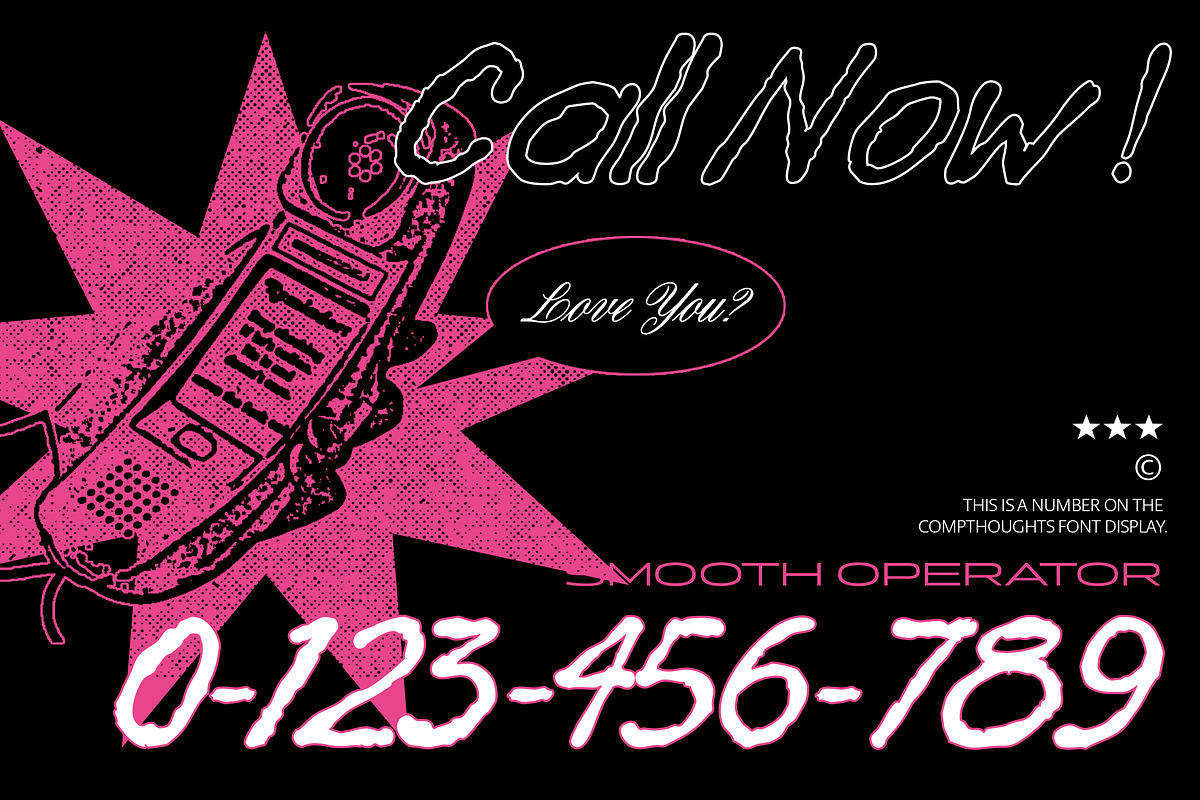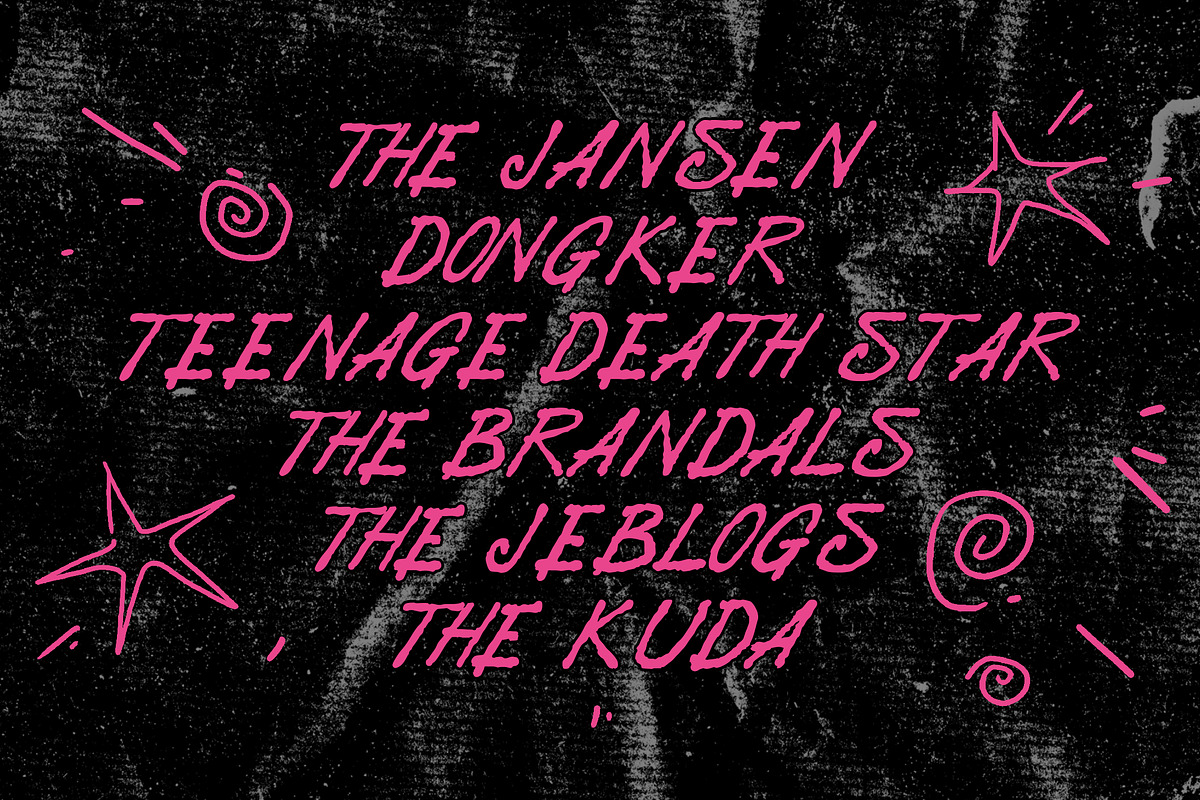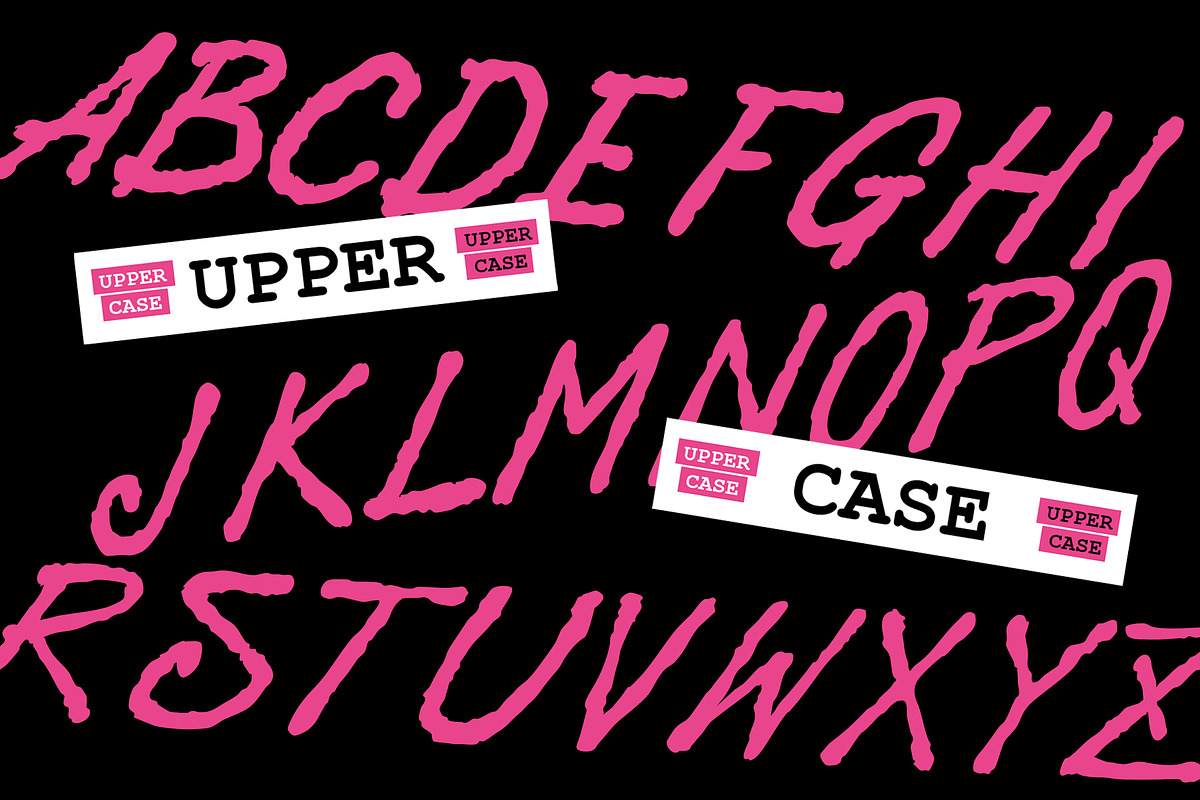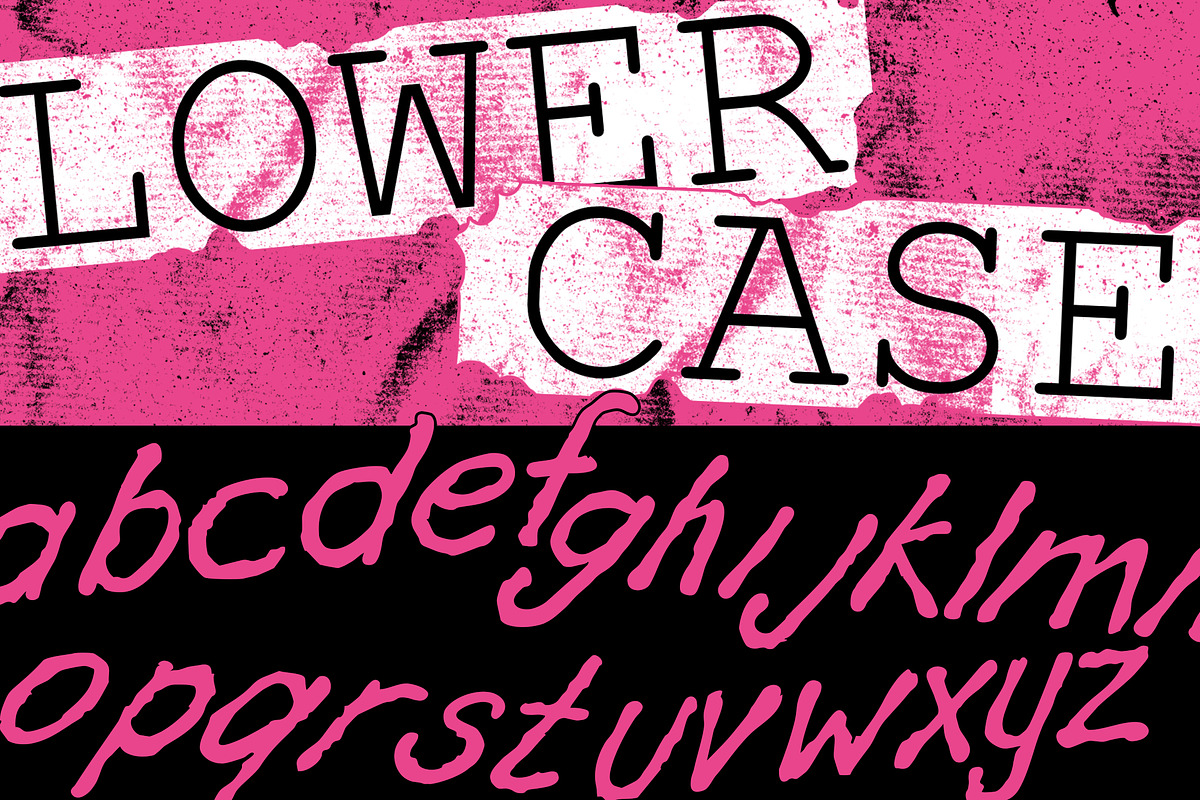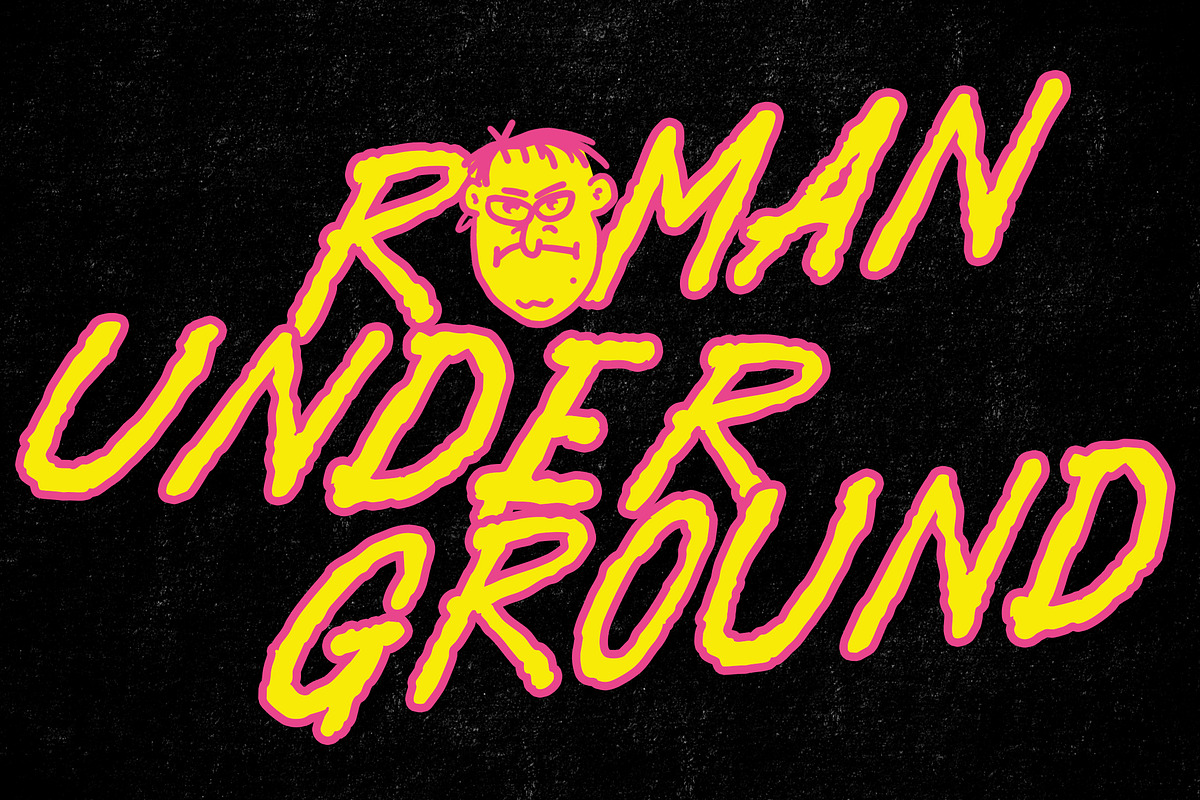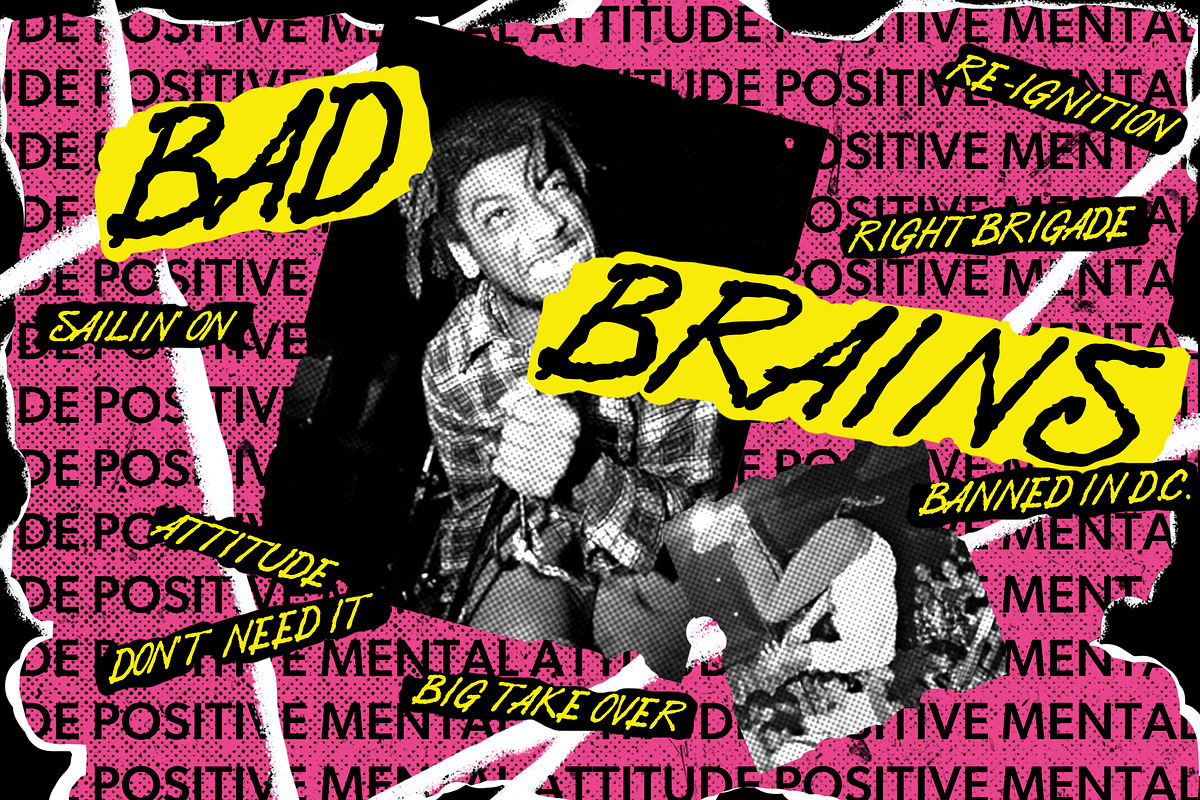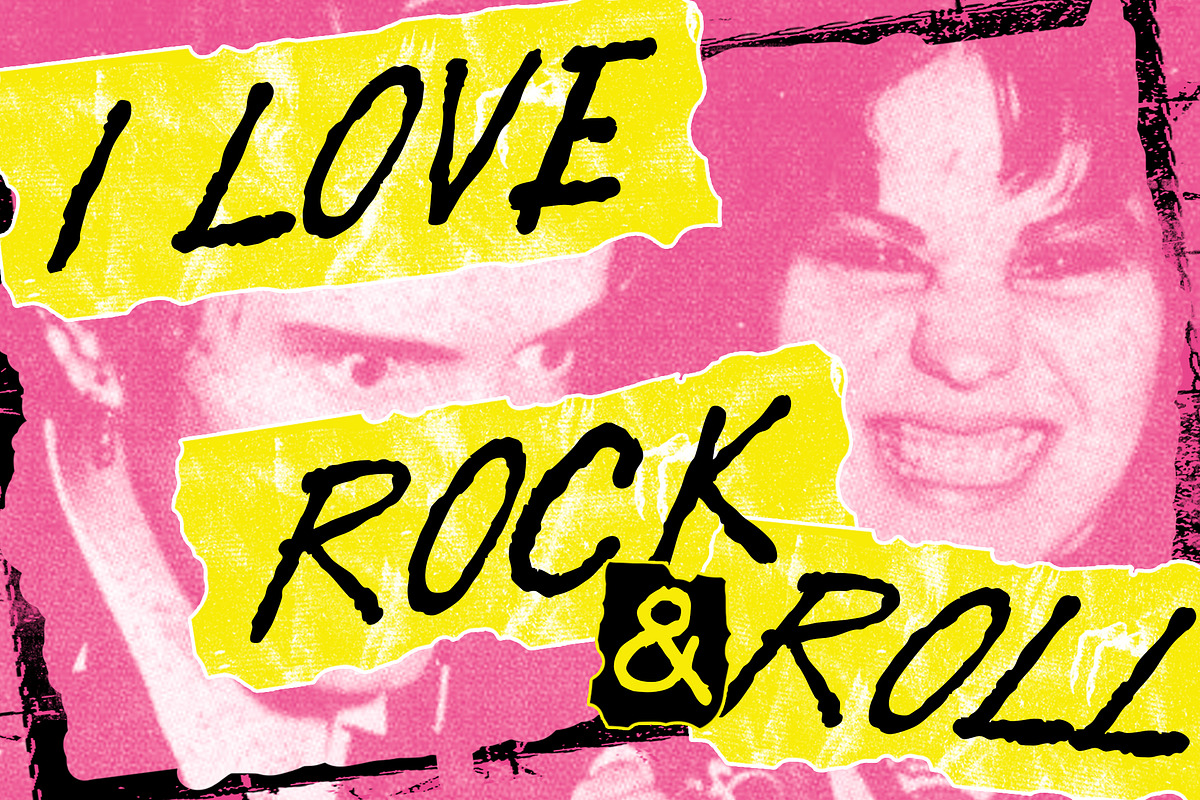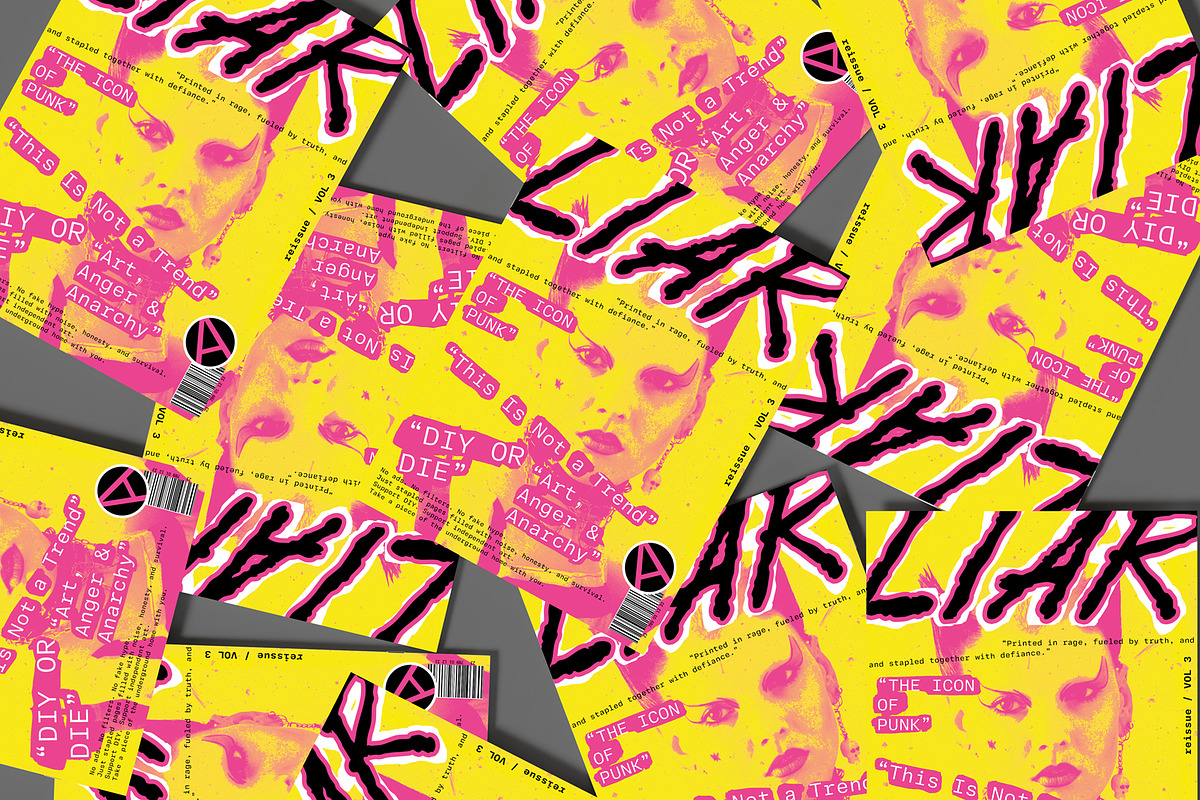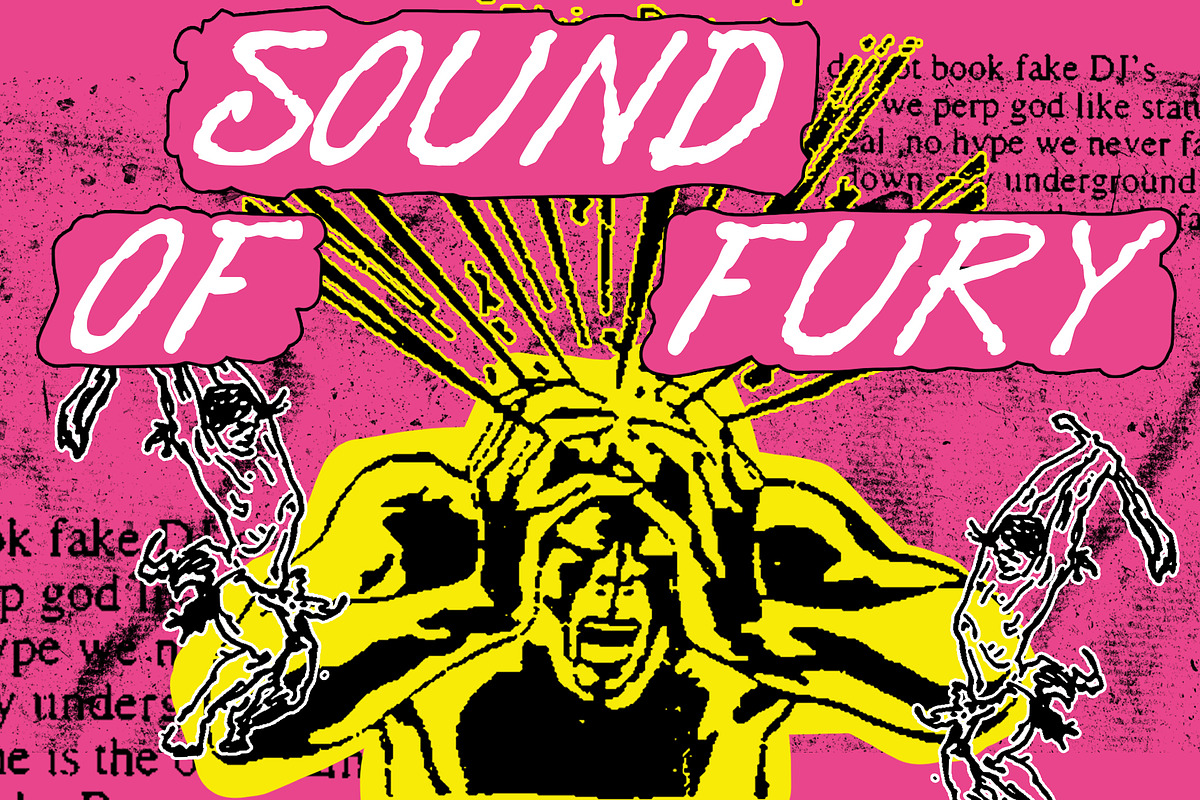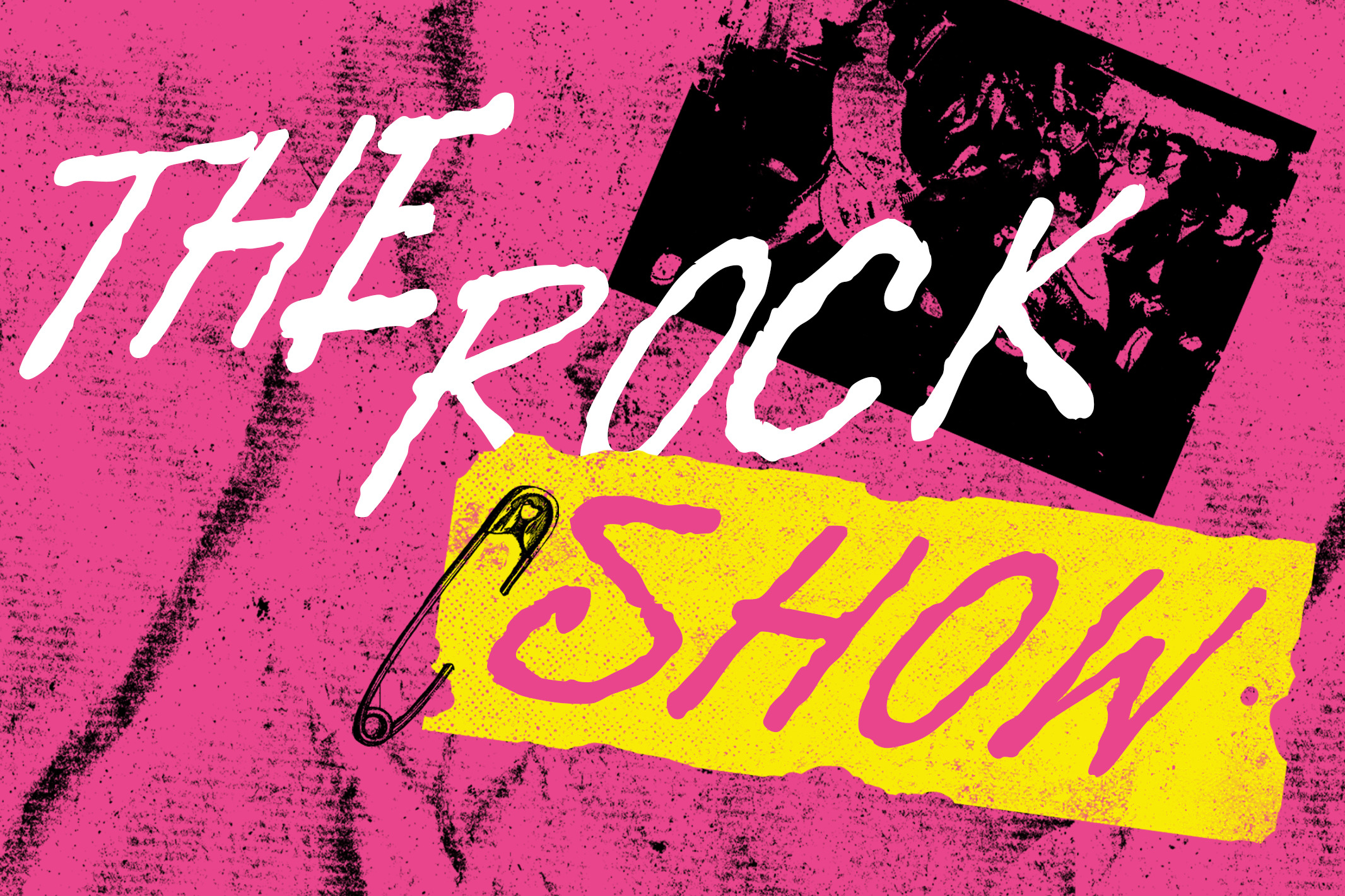
Compthoughts - DIY Garage Rock Font
Hand-drawn DIY Garage Rock Font that captures the raw energy and rebellious spirit of underground music.
Bring a gritty, authentic punk vibe to your designs and make every headline stand out with Compthoughts distinctive, high-energy style.